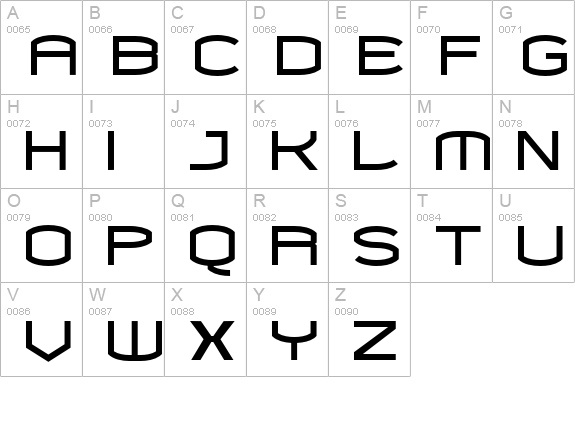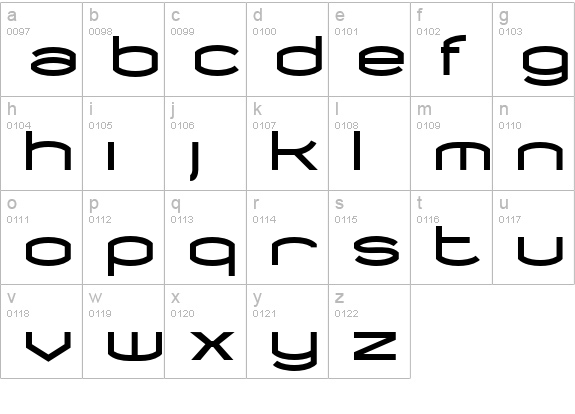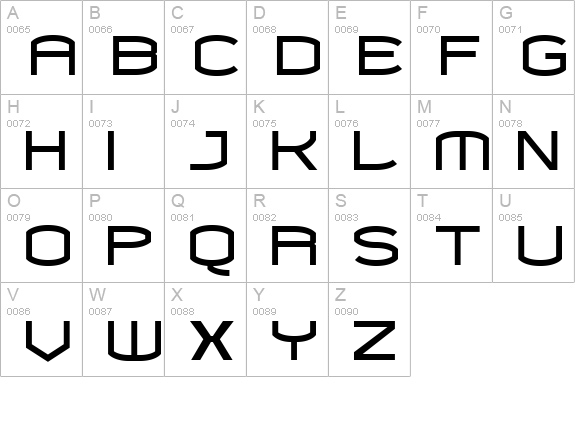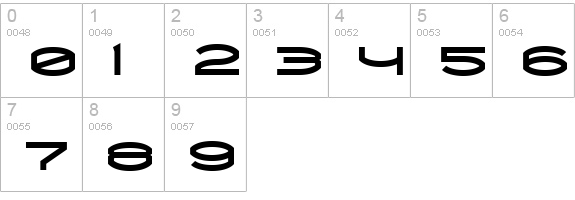
Chord-Black Font Details
Chord-Black is a maximum-weight, dramatic variant in the Chord typeface family \xE2\x80\x94 well suited to maximum-impact headlines, posters, and packaging.
Chord-Black font is a sleek and modern typeface that exudes sophistication and elegance. Its bold and distinctive letterforms make it perfect for creating eye-catching designs that command attention. This font is versatile and can be used for a wide range of projects, from branding to advertising to editorial design. What sets Chord-Black font apart is not only its striking aesthetics but also the fact that it is available for free! You can easily download this font at FontsMarket.com and start using it in your projects right away. Whether you're a professional designer looking to elevate your work or a hobbyist wanting to add a touch of style to your creations, Chord-Black font is a fantastic choice. Don't miss out on the opportunity to enhance your designs with this stunning typeface that is both stylish and easily accessible.